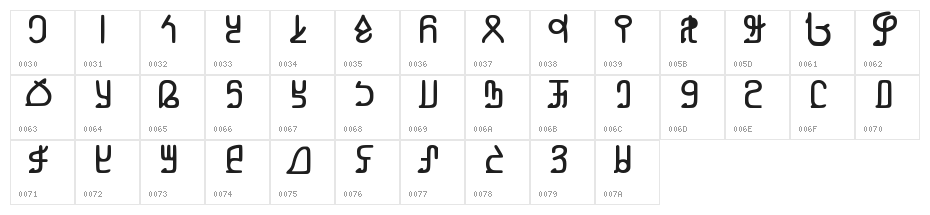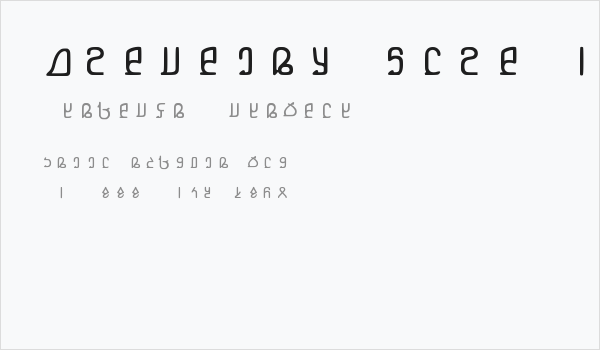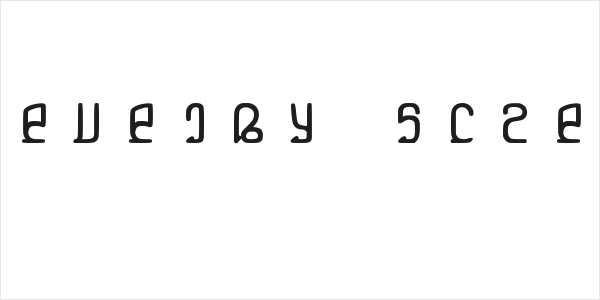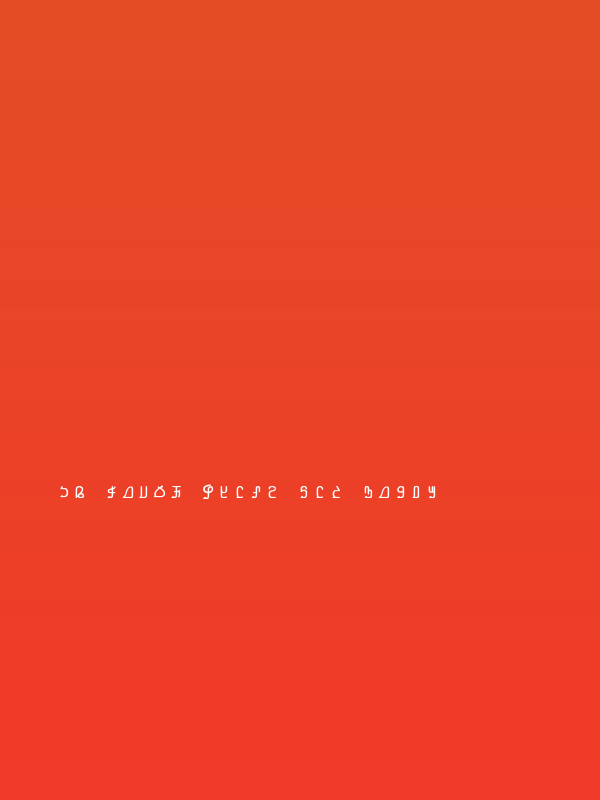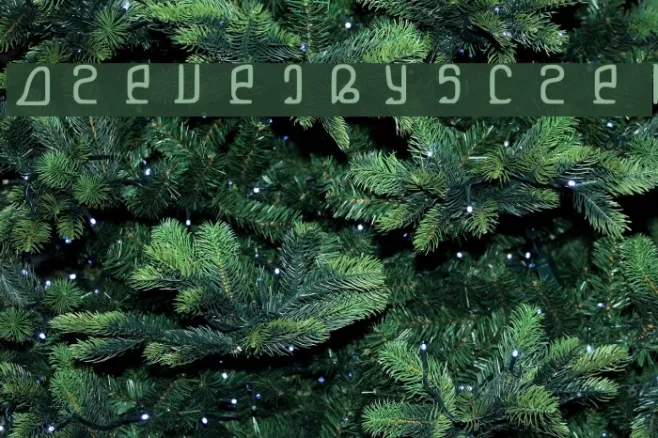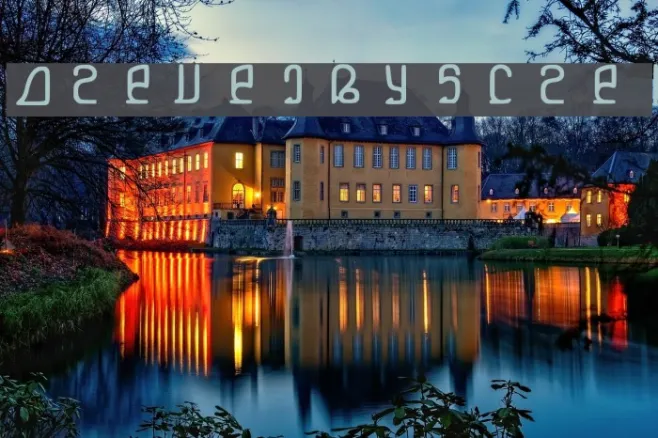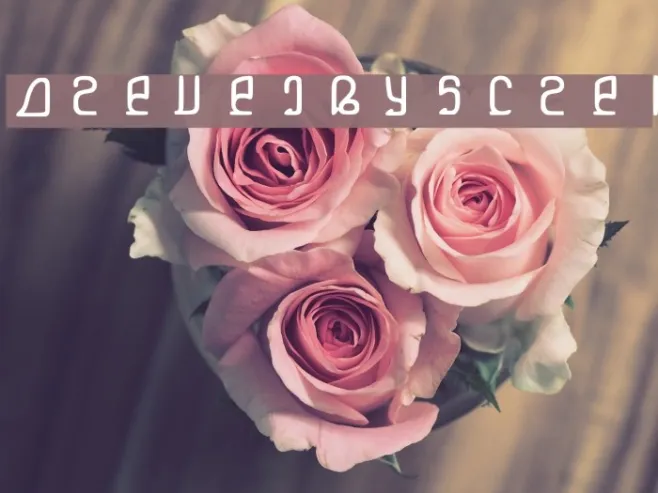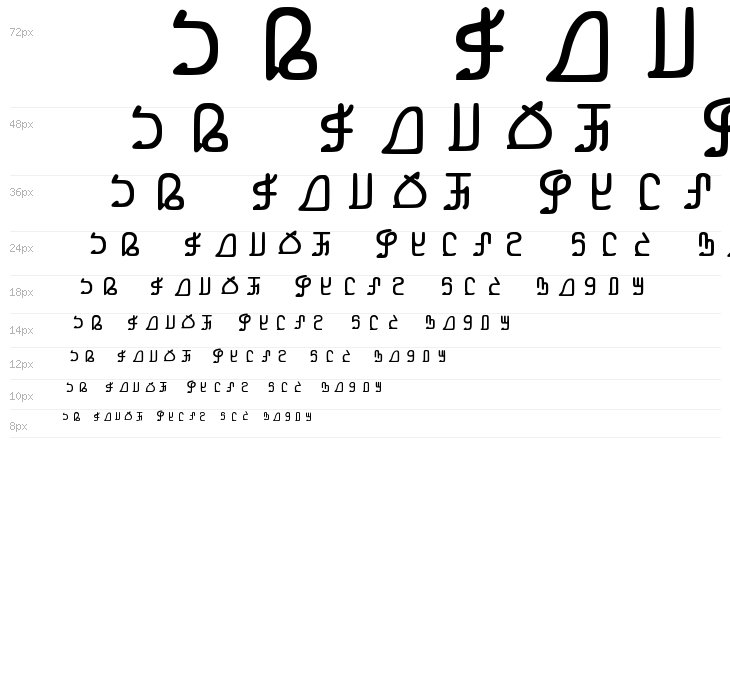
untitled-font-1 Font
untitled-font-1 Description
This font features a unique and abstract design, characterized by its unconventional shapes and forms that resemble a blend of geometric and organic elements. Each character is distinct, with a playful and artistic flair that makes it stand out. The strokes are consistent in weight, providing a uniform appearance across all characters. The font's style is reminiscent of a futuristic or alien script, making it ideal for creative and experimental projects. Its distinctiveness lies in the way it transforms traditional letterforms into something entirely new and unexpected, offering a fresh take on typography.
| Overall Style | Futuristic, Artistic |
| Use Case | Logos, Posters, Creative Displays |
| Proposed Projects | This font is perfect for sci-fi themed designs, artistic posters, experimental branding, and any project that requires a touch of the unconventional and futuristic. |